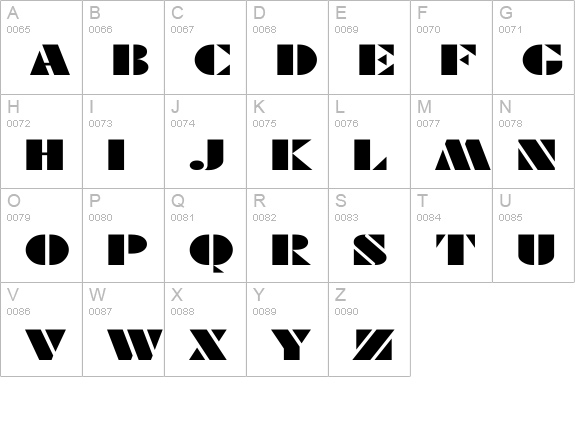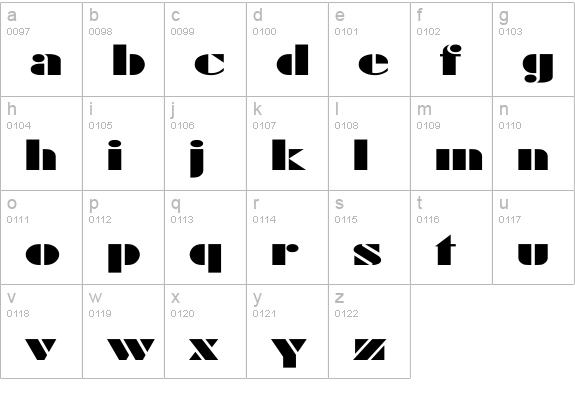
Rodchenko Ex Font Details
Rodchenko Ex font is a modern and stylish typeface that exudes confidence and sophistication. With its clean lines and geometric shapes, this font is perfect for creating sleek and contemporary designs. The sharp angles and bold strokes give it a sense of strength and dynamism, making it an ideal choice for logos, headlines, and branding materials. What sets Rodchenko Ex font apart is not only its striking appearance but also the fact that it is available for free download at FontsMarket.com. This means that you can easily access this high-quality typeface without any cost, making it a valuable addition to your design toolkit. Whether you're working on a personal project or a professional assignment, Rodchenko Ex font offers versatility and style that will elevate your designs to the next level. Download it today and unleash your creativity with this exceptional font.